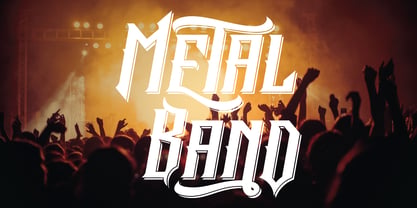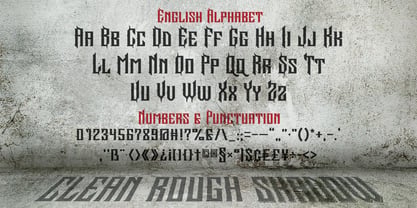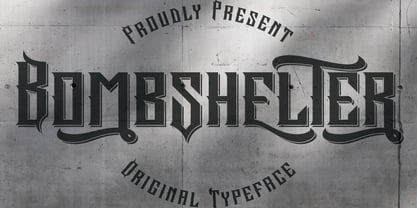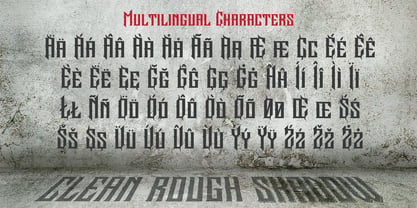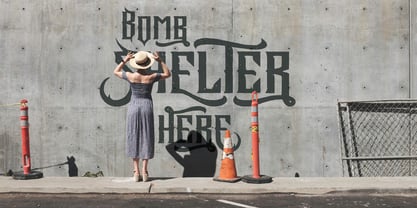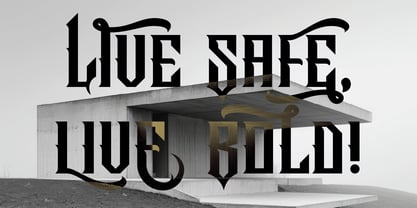
Bombshelter
by Vozzy
The Bombshelter Font Family was designed by Oleg Voznyy and published by Vozzy. Bombshelter contains 3 styles and family package options. More about this family
Introducing the original display font "Bombshelter" – a striking, handcrafted typeface designed to make a statement. It comes with extended characters, punctuation, and full multilingual support, making it a versatile choice for any creative project. A variety of alternate characters are included to give your text a personalized and dynamic look. Whether you're creating posters, flyers, branding, or T-shirt graphics, this font adds character and clarity to your design. "Bombshelter" was carefully drawn by hand to capture an authentic and expressive feel. Make your work stand out with this unique custom font.
Designers: Oleg Voznyy
Foundry: Vozzy